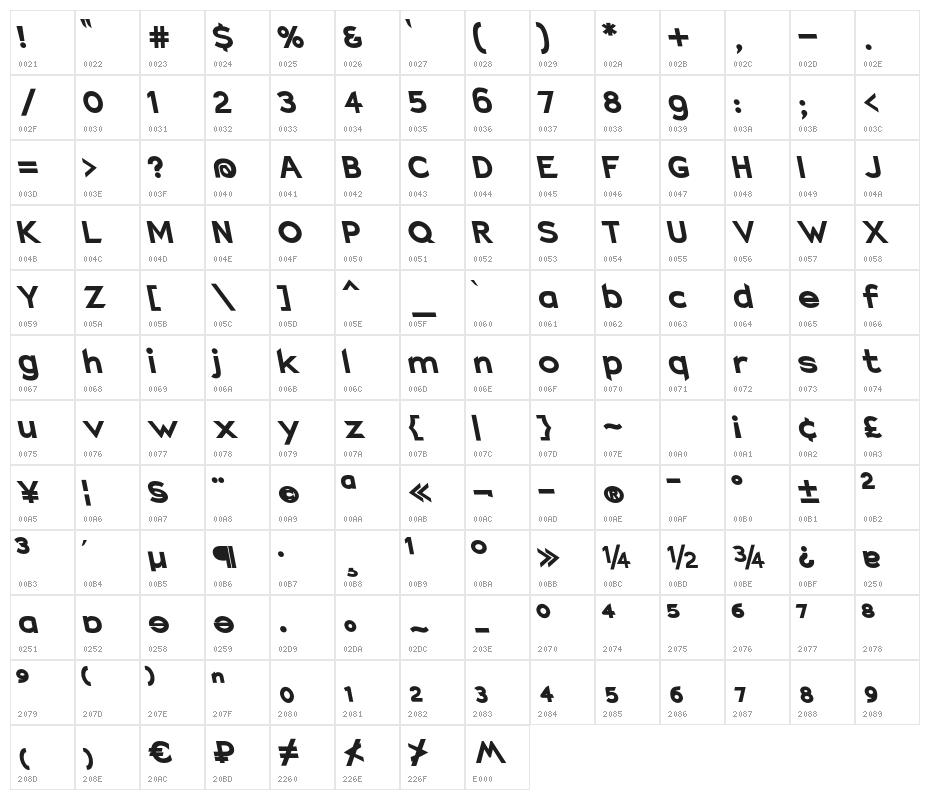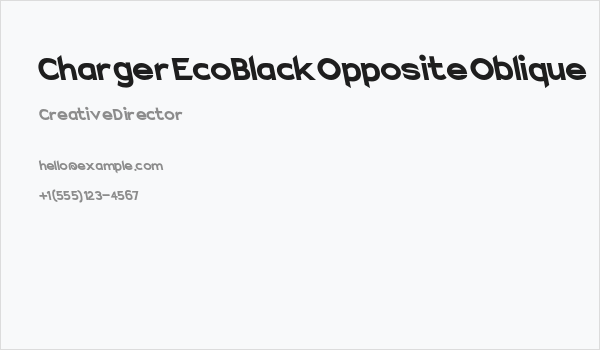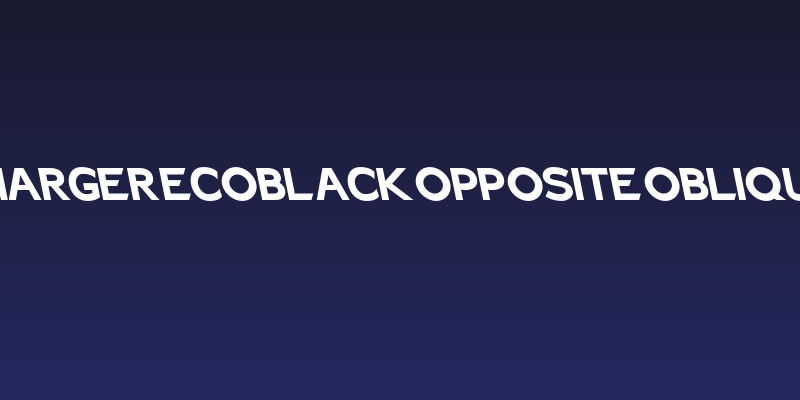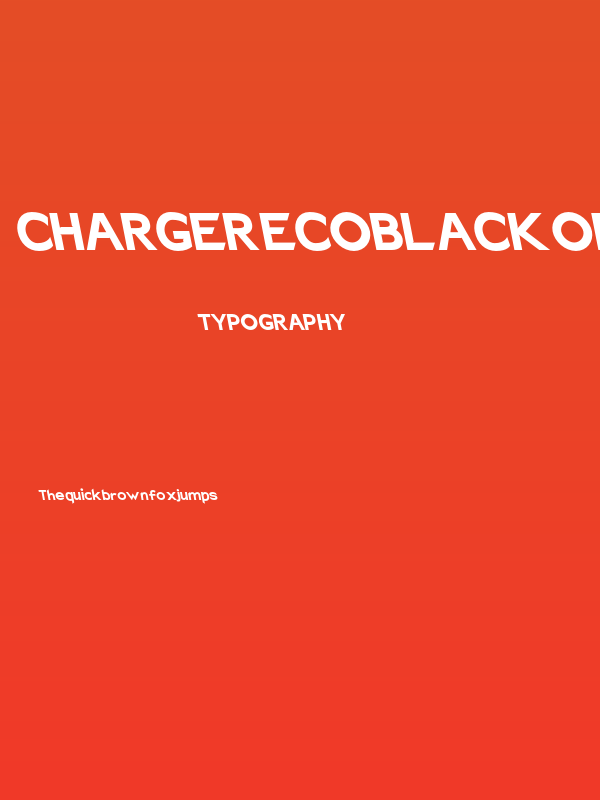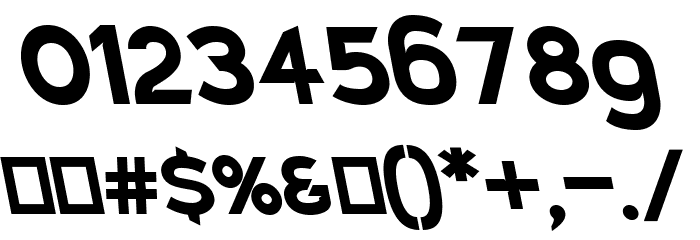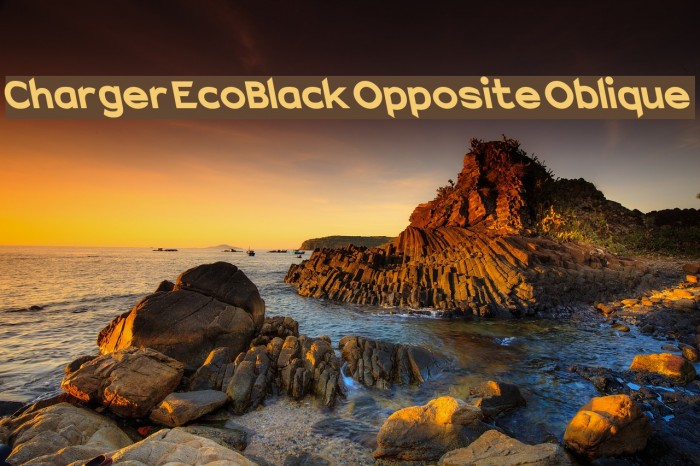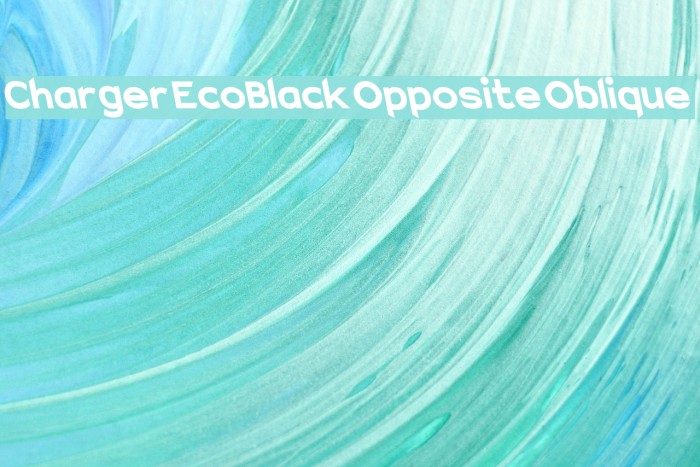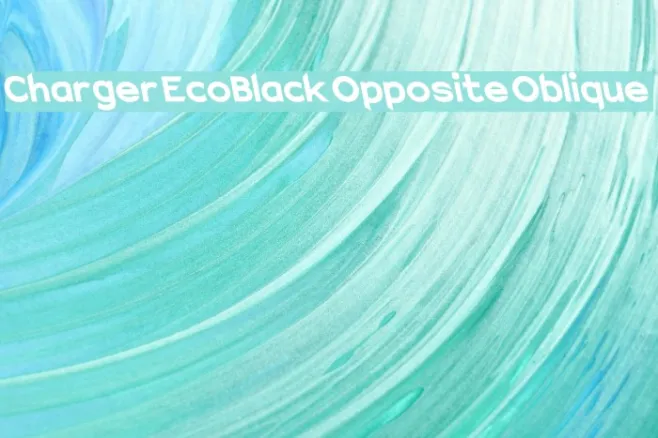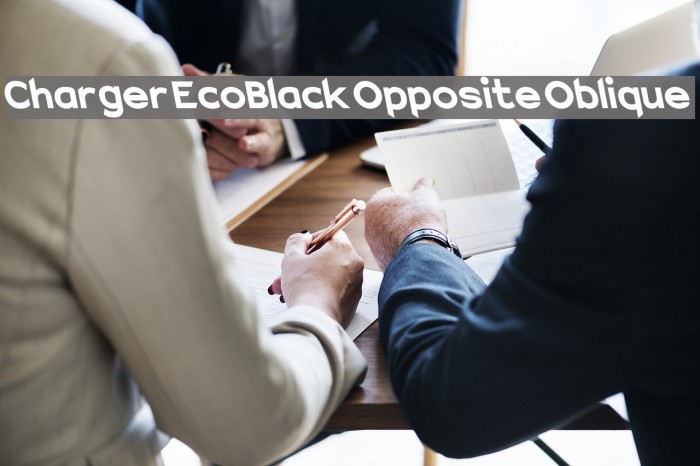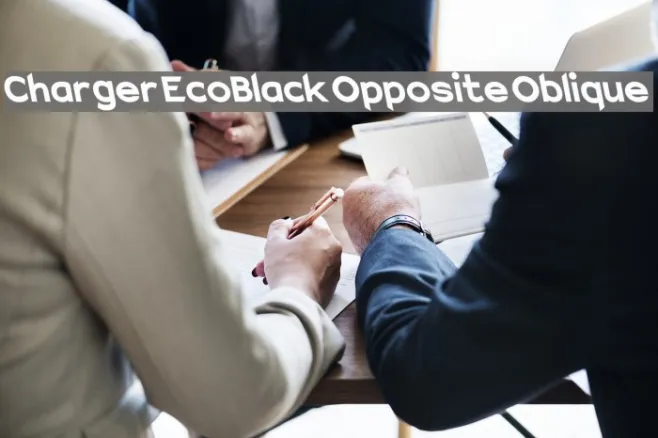
Charger EcoBlack Opposite Oblique Font
Charger EcoBlack Opposite Oblique Description
This font features a bold and dynamic style with a modern twist. The characters are slightly slanted, giving it an oblique appearance that adds a sense of motion and energy. The strokes are thick and consistent, providing a strong visual impact. The overall design is clean and geometric, with rounded edges that soften the boldness. This font is versatile, making it suitable for various design projects that require a contemporary and assertive look.
| Proposed Projects | Ideal for branding, advertising, headlines, and posters where a strong and modern impression is needed. |